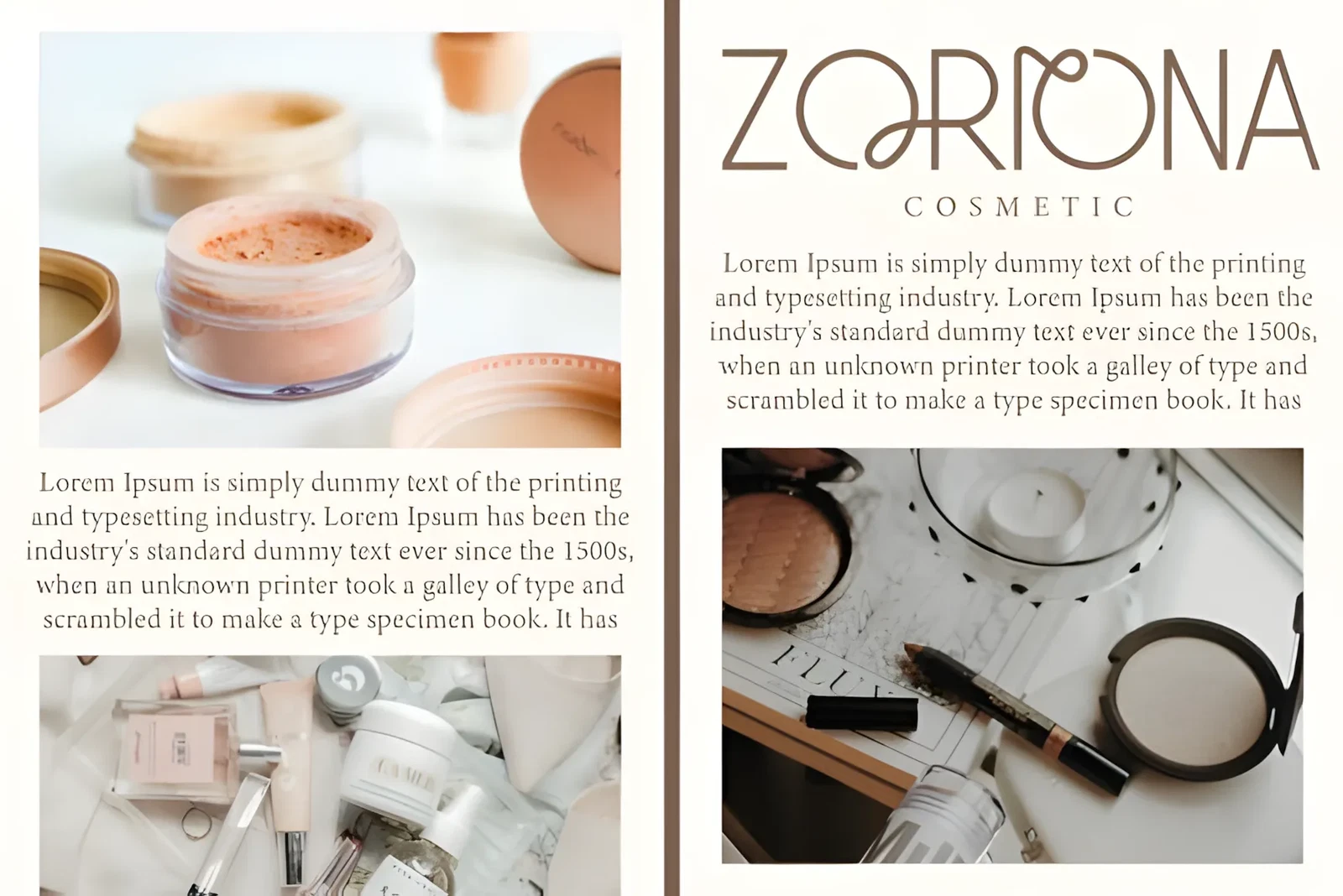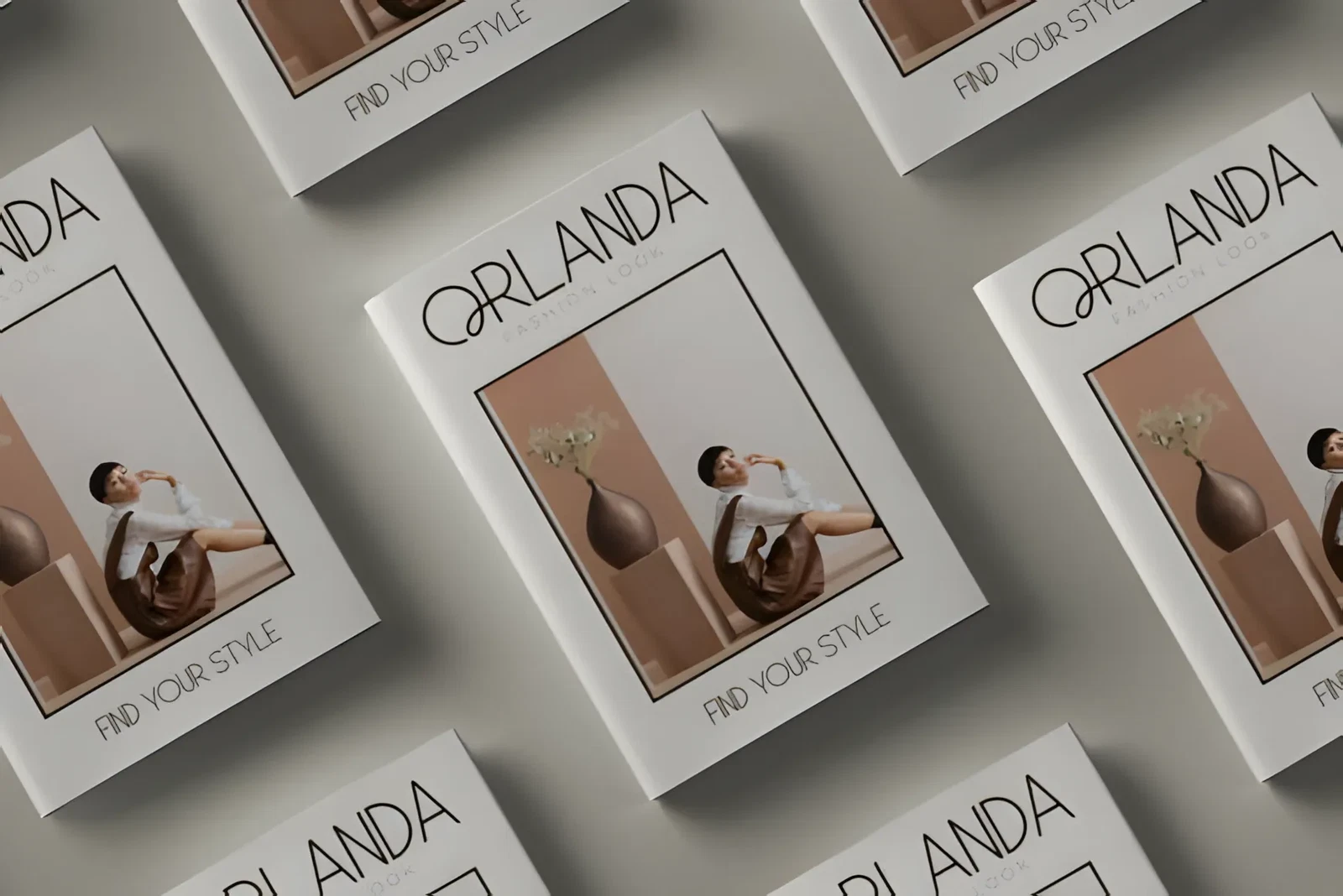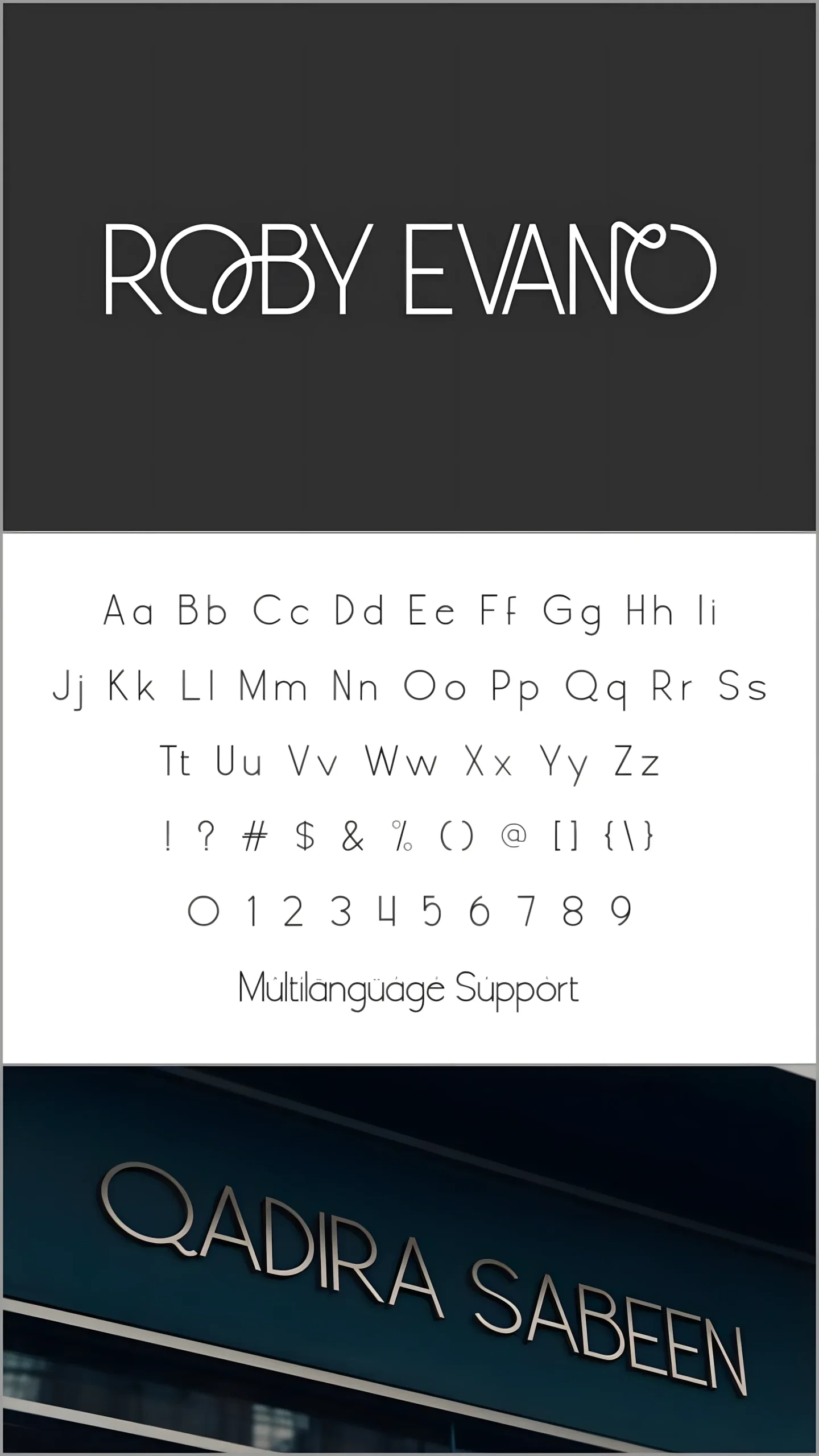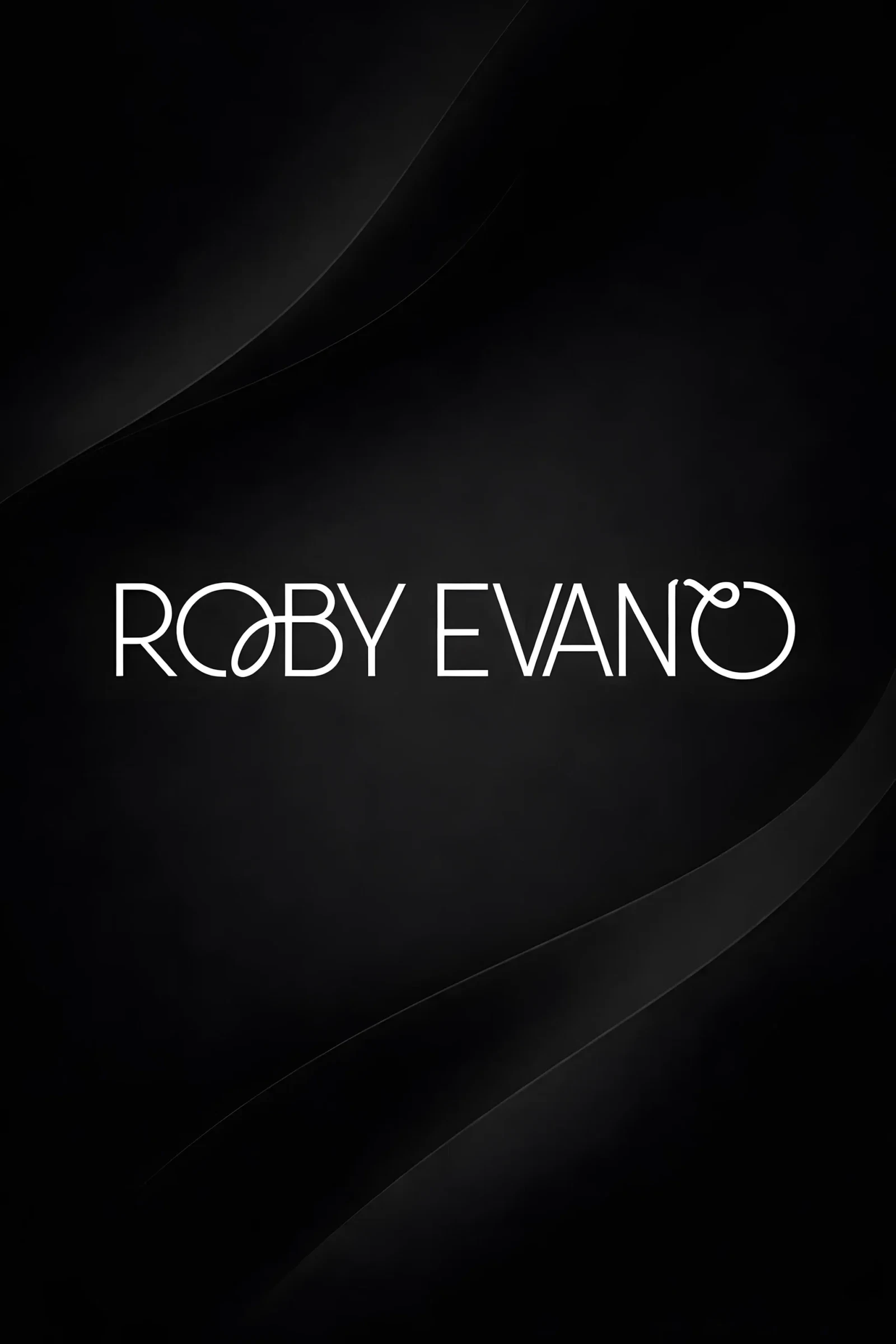
Minimalism in typography is not about simplicity for its own sake — it is about precision. Roby Evano Font is a modern sans-serif typeface that redefines minimalist elegance through geometry, rhythm, and carefully designed ligatures. It is built for brands and designers who want sophistication without excess.
This font feels calm, futuristic, and refined. Instead of relying on heavy weights or decorative tricks, it creates identity through structure and flow.
A Typeface Built on Geometry and Flow
Roby Evano stands out through its ultra-clean lines and interlocking circular ligatures. Characters connect visually, creating a seamless, continuous rhythm that feels almost architectural. This gives text a sense of motion while maintaining strict control over form.
The geometry is deliberate. Rounded elements and consistent stroke weight give the font a smooth, polished appearance that feels both modern and artistic. Nothing feels accidental — every curve supports the overall balance.
This design approach makes the font especially appealing for high-end visual communication.
Visual Personality and Typographic Mood
Roby Evano communicates luxury quietly. It does not shout for attention, but it holds it. The thin, consistent stroke weight creates a refined silhouette that works beautifully in spacious layouts.
The font feels:
- minimalist and elegant
- futuristic without being cold
- artistic yet professional
- calm, clean, and intentional
Because of this balance, it pairs exceptionally well with monochromatic palettes and high-resolution photography.
Where Roby Evano Performs Best
Luxury and High-End Branding
Roby Evano is ideal for brands that operate in premium spaces. It works particularly well for:
- luxury fashion labels
- high-end product branding
- jewelry and accessory brands
- spa and wellness identities
Its refined geometry helps brands feel exclusive and modern at the same time.
Architectural and Design-Focused Logos
The structured, circular ligatures give the font an architectural quality. This makes it well suited for:
- architectural studios
- interior design brands
- creative agencies
- modern real estate identities
Logos created with Roby Evano feel intentional and visually balanced.
Tech and Digital Branding
Despite its elegance, Roby Evano also fits naturally into tech-forward branding. Its clean structure and futuristic tone make it effective for:
- technology startups
- digital platforms
- modern website headers
- UI headline typography
The font looks crisp on screens and maintains clarity across resolutions.
Readability and Practical Use
Although the font has a strong stylistic identity, it remains readable when used correctly. It performs best in:
- logos and wordmarks
- headlines and titles
- short phrases and branding statements
The thin stroke weight and ligature design make it more suitable for display use rather than long body text, where its elegance can be preserved.
Roby Evano includes full character support, numbers, punctuation, and multilingual glyphs. PUA encoding allows access to stylistic features and ligatures without additional software complexity.
Because its style is rooted in minimalism rather than trends, Roby Evano remains visually relevant over time.
Why Minimalist Fonts with Ligatures Stand Out
Fonts that rely on subtle details rather than decoration tend to age better. Roby Evano succeeds because its uniqueness comes from structure — not ornament.
The circular ligatures create memorability without sacrificing clarity. This makes the font especially effective for brands that want to feel distinctive while remaining refined.
Who Roby Evano Font Is Best For
Roby Evano is especially well suited for:
- luxury brand designers
- fashion and lifestyle brands
- architects and creative studios
- digital and tech-focused businesses
- anyone seeking minimalist elegance in typography
It works best in projects where space, balance, and refinement matter.
Final Perspective
Roby Evano Font is a study in controlled elegance. Its geometric construction, interlocking ligatures, and minimalist philosophy create a typeface that feels premium, modern, and artistic without excess.
For designers looking to communicate sophistication through typography alone, Roby Evano offers a distinctive and future-ready solution grounded in clarity and visual harmony.